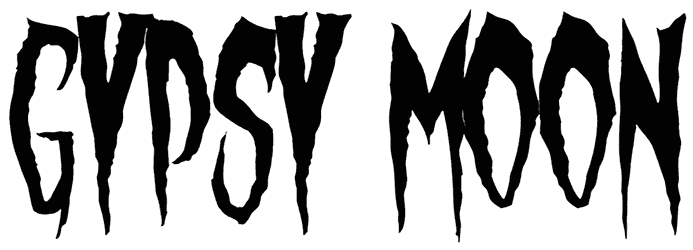
Gypsy Moon Font
Gypsy Moon is a horror font with pointed, elongated letters and an unusual shape, which is suitable for recording scary, exciting images and spooky theme designs. You can use this evil font for logos, magazines and book covers, labels, computer games, or any other advertising purpose and release your darkest ideas.
The absence of small letters in this collection will not reduce anything from its value to help you gain credibility and fame, and can finally bring you a first-class result.